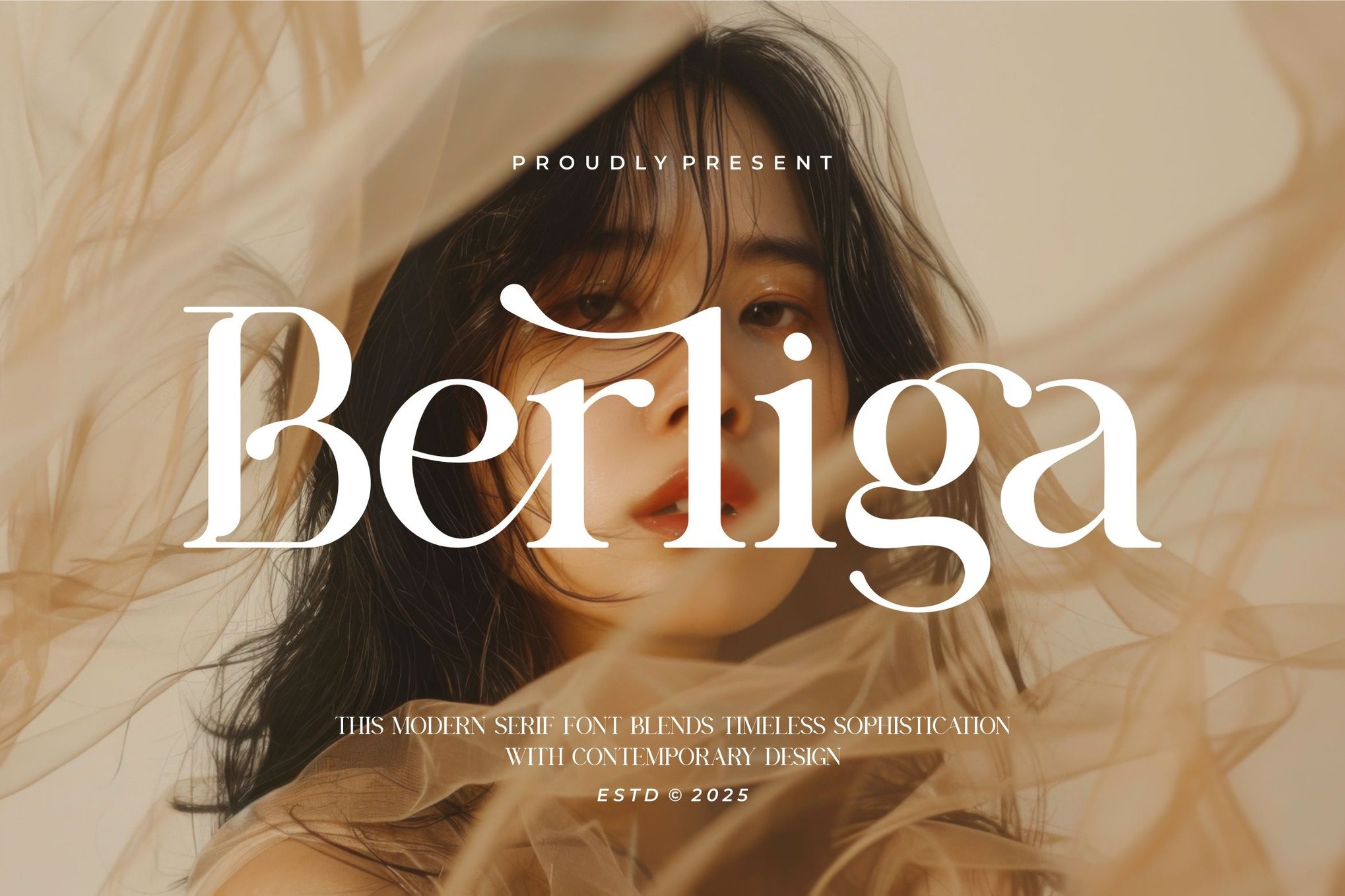
Berliga Font
Berliga Font is a modern and classy font type for all branding and logo designs. This modern and classy Serif font has a beautiful character. This font is suitable for invitation card designs, cool logos, movie titles, movie names, business cards, book titles, brand names, and various other designs. Berliga Serif is a smooth serif font that exudes sophistication and the moment. Its stylish ligatures make this font a perfect partner for any project.